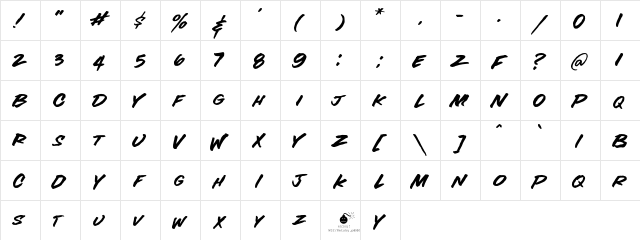
LHF Fast Slant Regular
| Foundry | Chuck Davis for Letterhead Fonts |
| Designer | Chuck Davis for Letterhead Fonts |
Design Context for LHF Fast Slant Typeface
LHF Fast Slant is a composed and adaptable typeface that performs quietly and consistently across a wide range of design contexts.